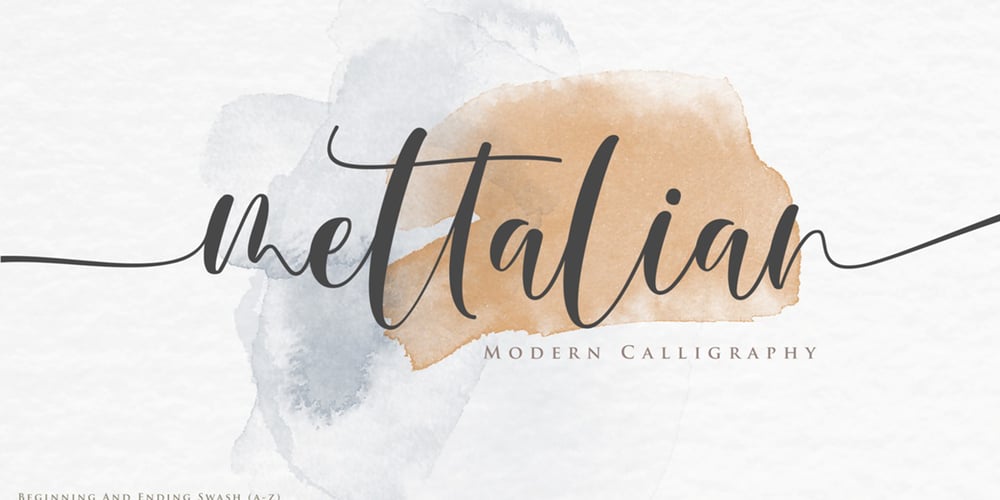
Mettalian
Mettalian font
Mettalian Font Family was designed by Gumilar Pratama Adiatna and published by Gilar Studio. Mettalian contains 1 styles and family package options. Mettalian is an modern calligraphy font that is suitable for branding, signature, wedding invitation, promotion, product packaging, logo, quote, and other needs. This font is modern, simple, but still authentic. You will get full set of lowercase and uppercase letters, numerals and punctuation, multilingual symbols, lowercase beginning and ending swashes, and ligatures.All of features and special characters of this font are included in one file. So it is easy to accessed by using program or software that support the opentype like Adobe Illustrator, Adobe Photosop, and Adobe Indesign). This font also very easy to use because compatible for all software even for non-opentype supported.If you don’t have a program that supports OpenType features such as Adobe Illustrator and CorelDraw X Versions, you can access all the alternate glyphs using Font Book (Mac) or Character Map (Windows).To Access Alternate Characters Click The Link Below:Adobe illustrator CS https://www.youtube.com/watch?v=geL0Ye02RykAdobe illustrator CC https://www.youtube.com/watch?v=V25yiUh8BcEMs Word https://www.youtube.com/watch?v=HxkhZiCuwEwCoreldraw X7 https://www.youtube.com/watch?v=UBVsufJjonsAdobe Photoshop CC https://www.youtube.com/watch?v=BYKXl58AdNYIndesign CS https://www.youtube.com/watch?v=HgZTCxKG14QCheck my other Font here : https://gilarstudio.com/